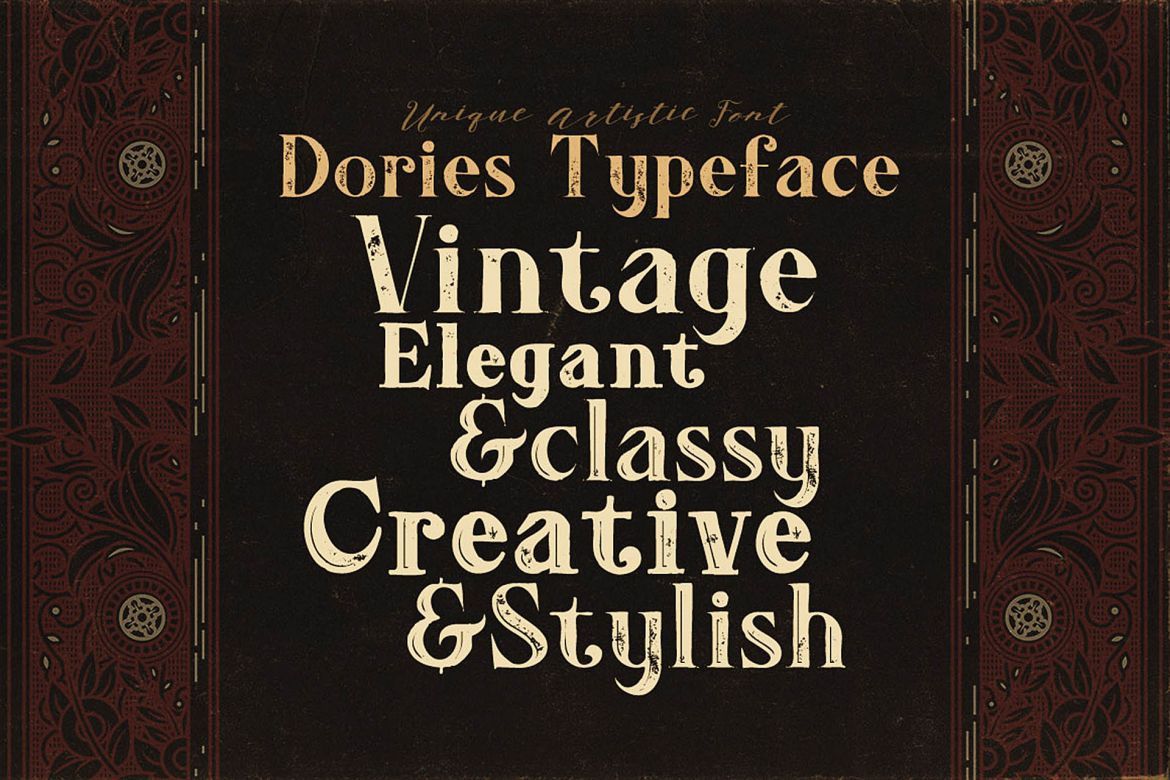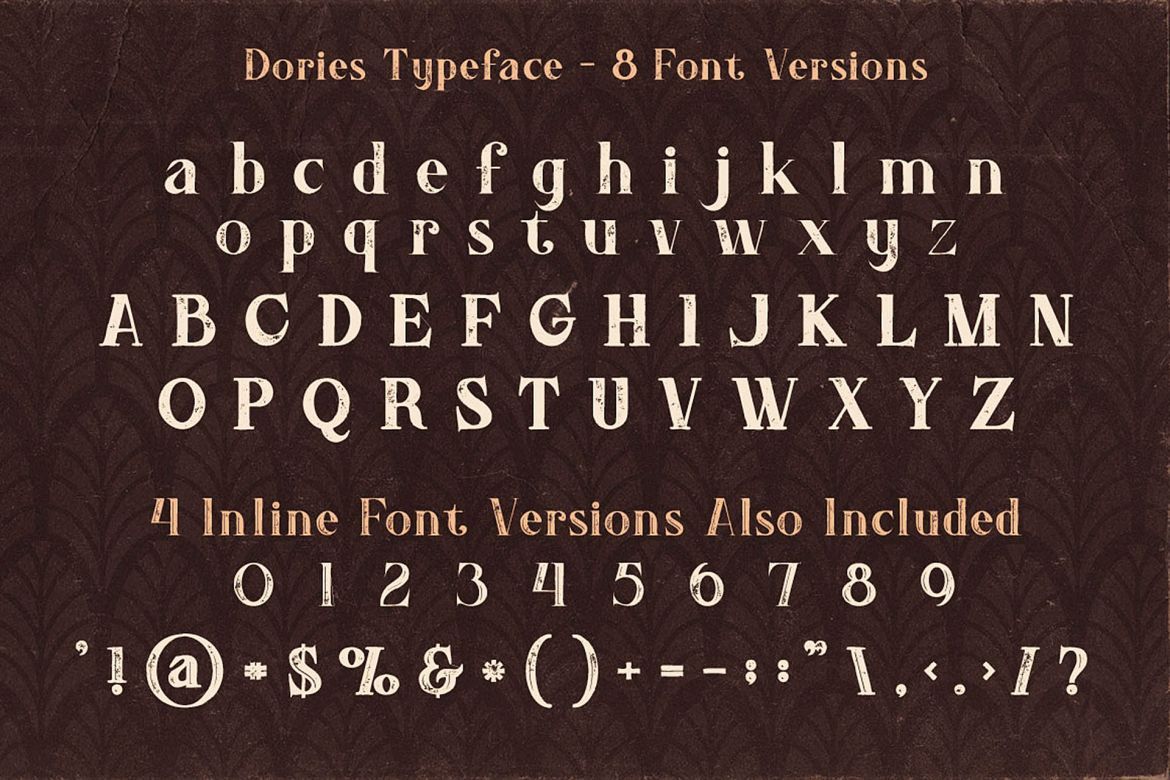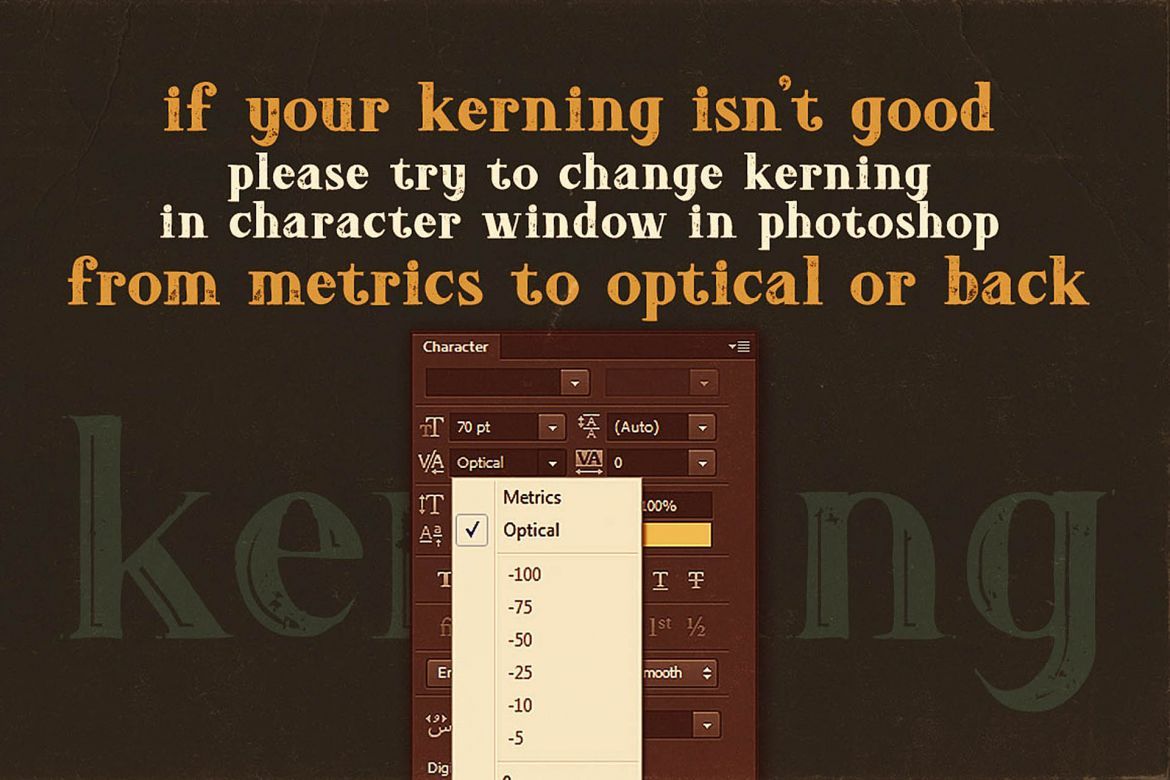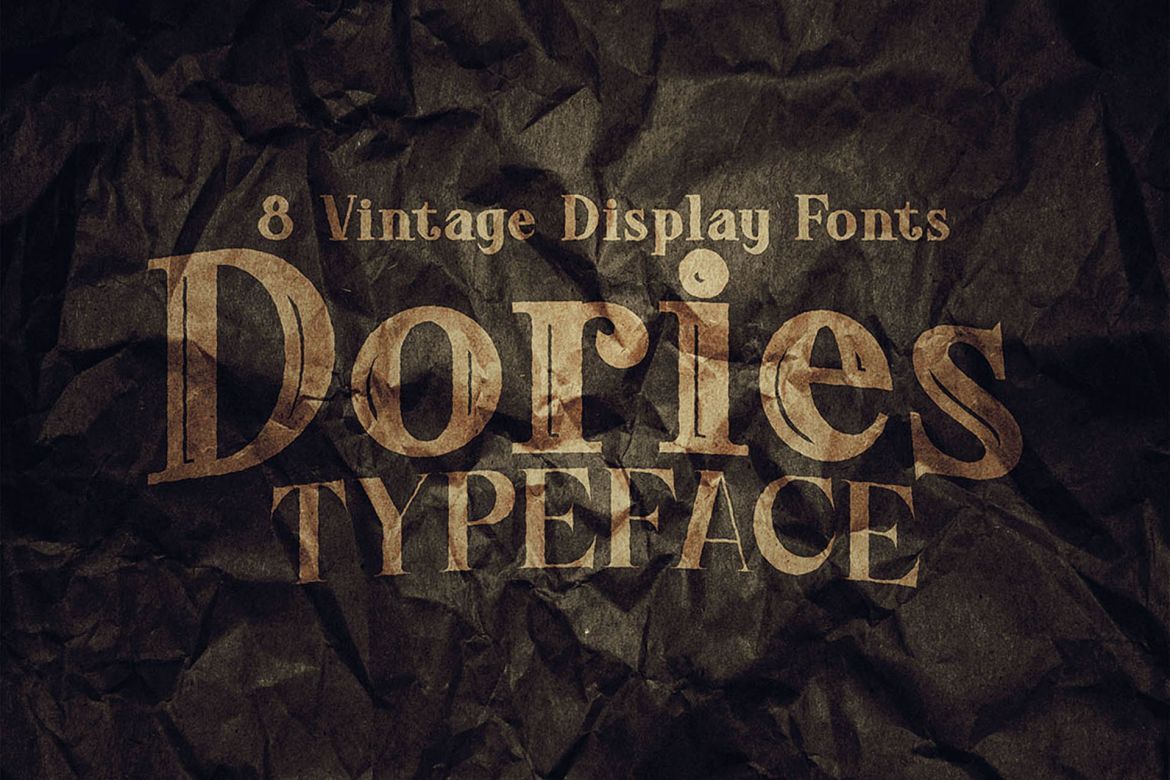
Dories - Display Font
Unique retro - vintage & grunge style custom display font with 8 styles: regular and grunge, inline and grunge, bold & grunge, bold inline and grunge.